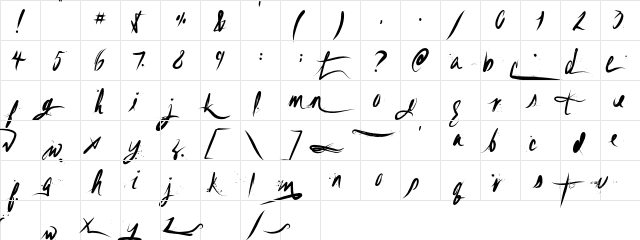
Unfolding Tragedy Textured
Design Context for Unfolding Tragedy Typeface
Unfolding Tragedy embraces imperfection — its rough, textured character adds raw authenticity to designs that want to feel lived-in and unconventional.
A strong fit for alternative music projects, graffiti-adjacent design, and anything that deliberately resists polish.
Pro Tip: Use Unfolding Tragedy at larger sizes where the texture and irregularity of each letterform can be clearly seen — it loses its character at small sizes.